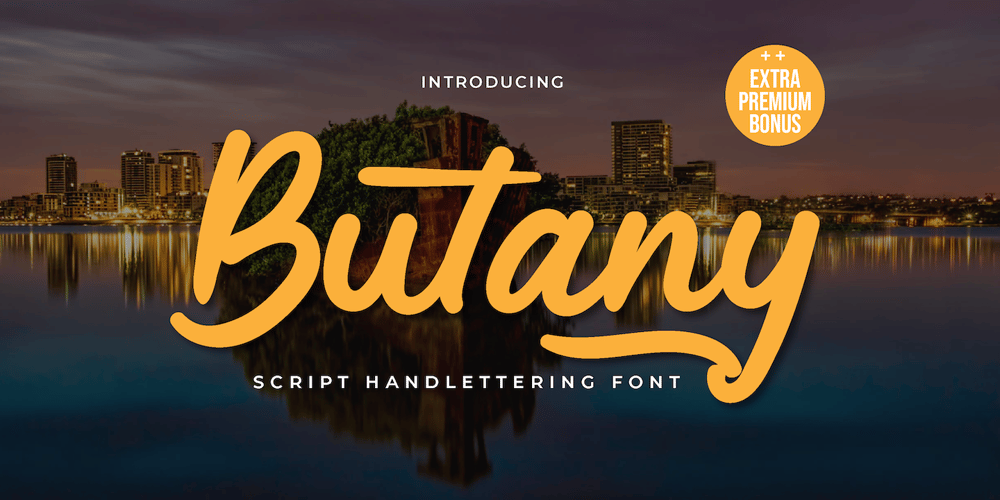
Butany
Butany font
Butany Font Family was designed by Rozikan and published by Twinletter. Butany contains 1 styles and family package options. Introducing our newest Butany Fonts.This font is created with original hand drawn strokes for a relaxed, beautiful and elegant impression.This font also offers beautiful abstract typographic harmony for a wide variety of design projects, including natural handwriting in digital form for designs, quote designs, for social media business designs, advertisements, trademarks, promotional banners, posts, posters, signatures, and all designs require handwriting or whatever design you want.This font is equipped with uppercase, lowercase, numbers, punctuation marks, swhases and several variations on each character including multi-language.This font is best suited for open type friendly applications. How to get alternative glyphs from open type fonts: http://adobe.ly/1m1fn4YPUA Character Code – Fully accessible without additional design software.We hope you enjoy this font. Feel free to send whatever message you want to convey.thank youRegardsTwinletter